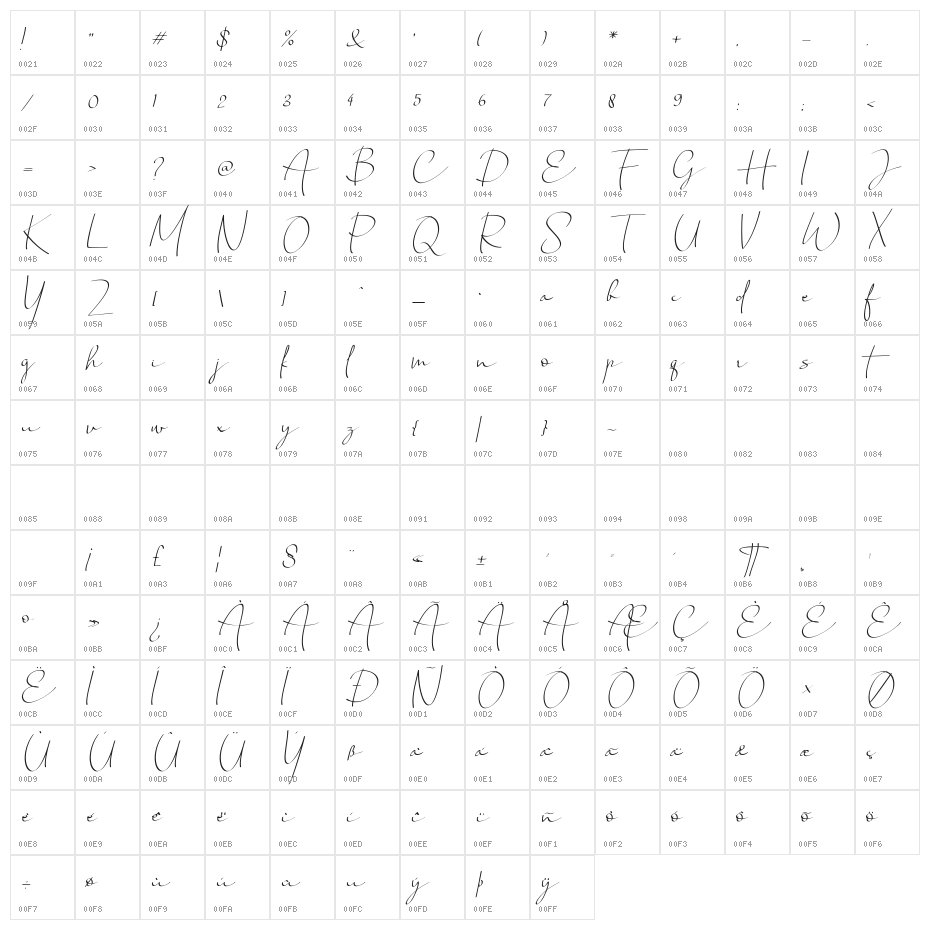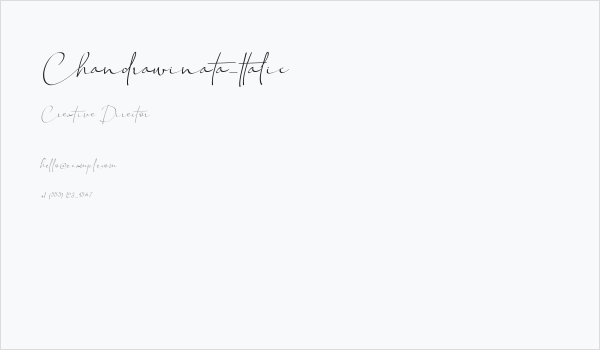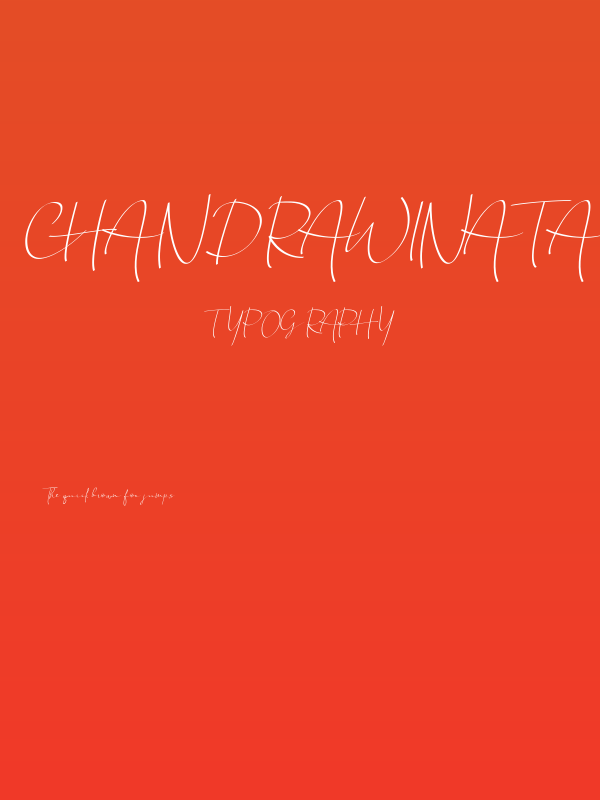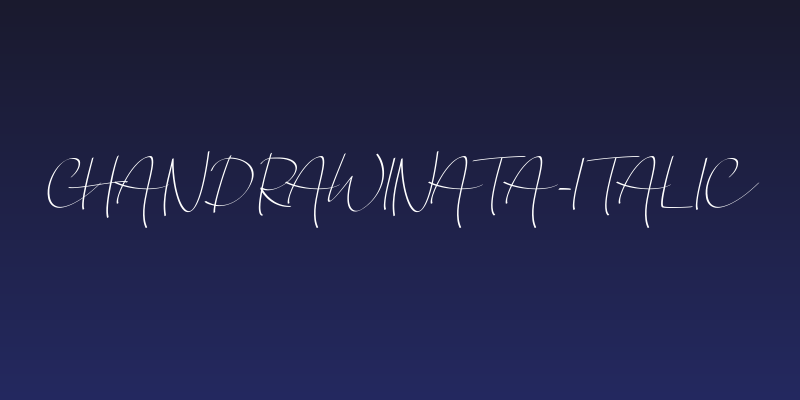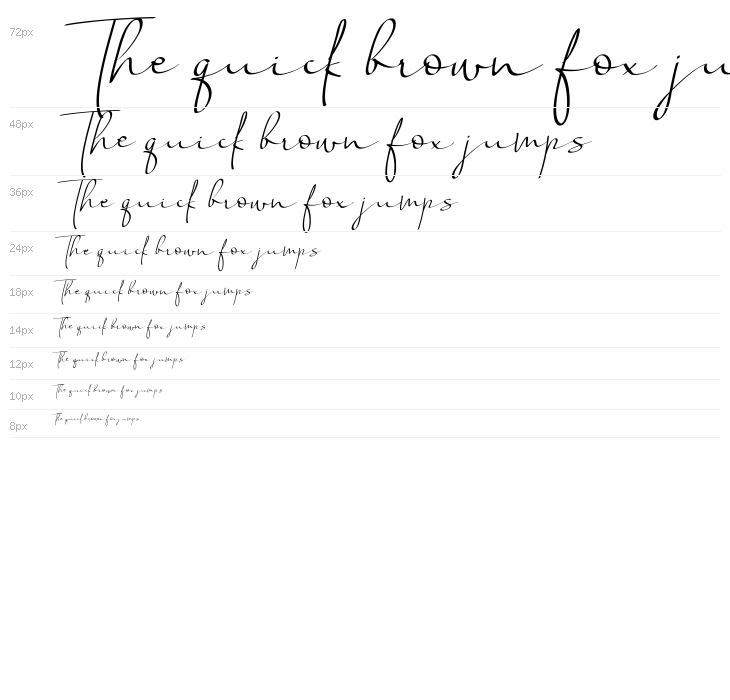
Chandrawinata-Italic Font
Chandrawinata-Italic Description
This elegant script font features a flowing, cursive style with a sophisticated flair. The characters are delicately crafted with smooth, sweeping curves and a slight slant, giving it an italicized appearance. The uppercase letters are tall and graceful, while the lowercase letters maintain a consistent flow, enhancing readability. The numerals and special characters are designed to complement the overall aesthetic, maintaining the same fluidity and elegance. This font exudes a sense of refinement and is ideal for projects that require a touch of class and sophistication.
| Overall Style | Elegant, Sophisticated |
| Proposed Projects | Ideal for wedding invitations, elegant branding, personal stationery, and high-end product packaging. |